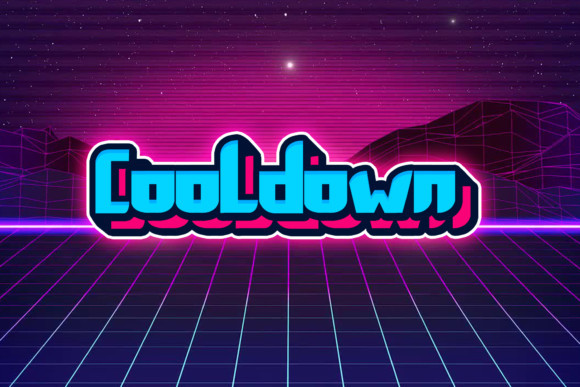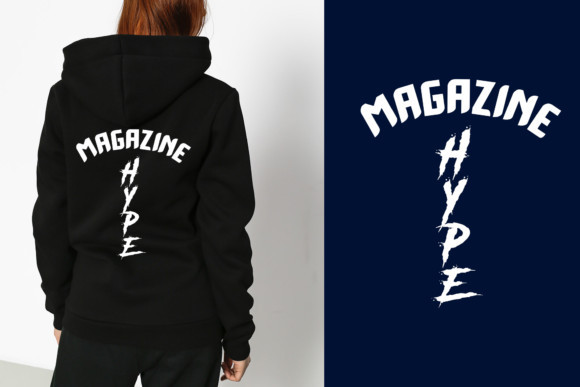
Cooldown Font
Introducing the brand new Cooldown, a sans serif font.
Use this cool font to give personality to your next projects.
It can be easily used for logos, posters, magazine covers and much more.